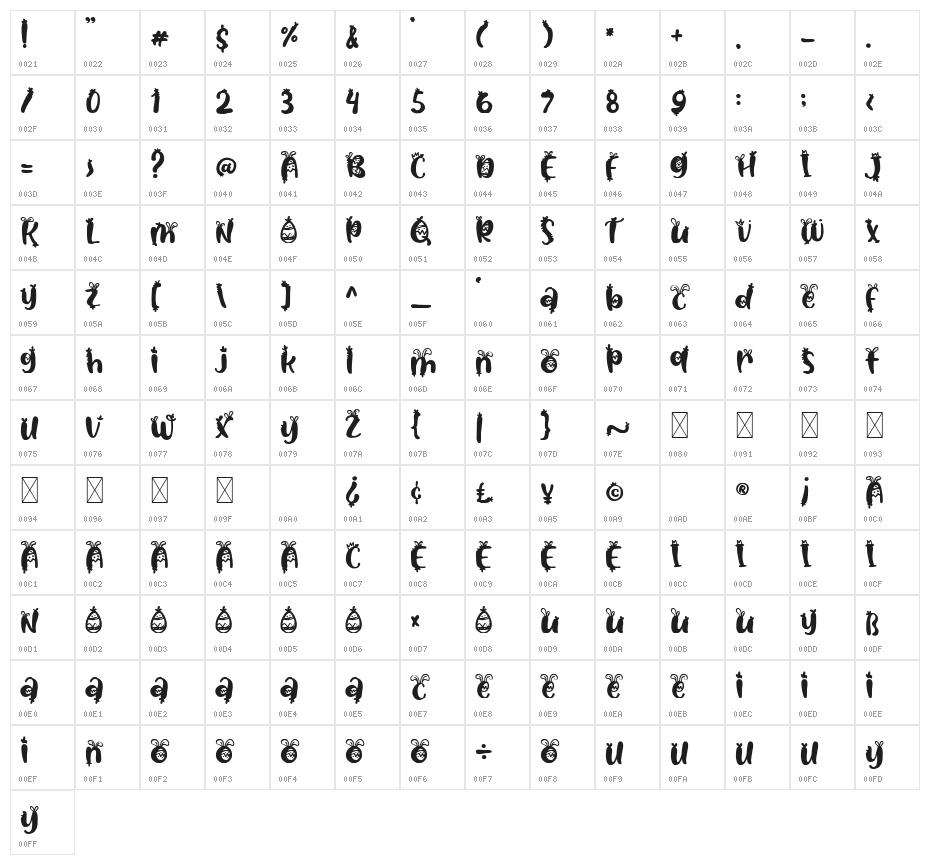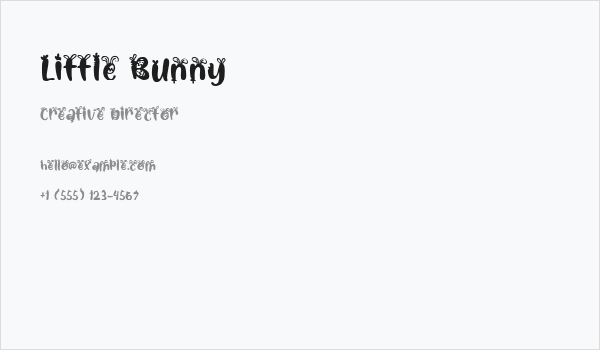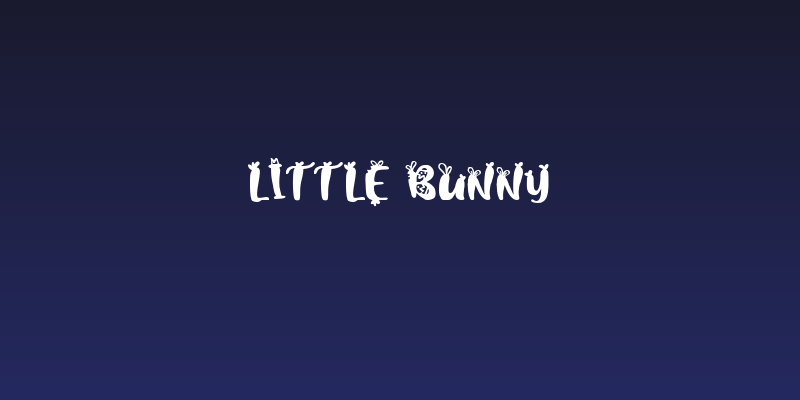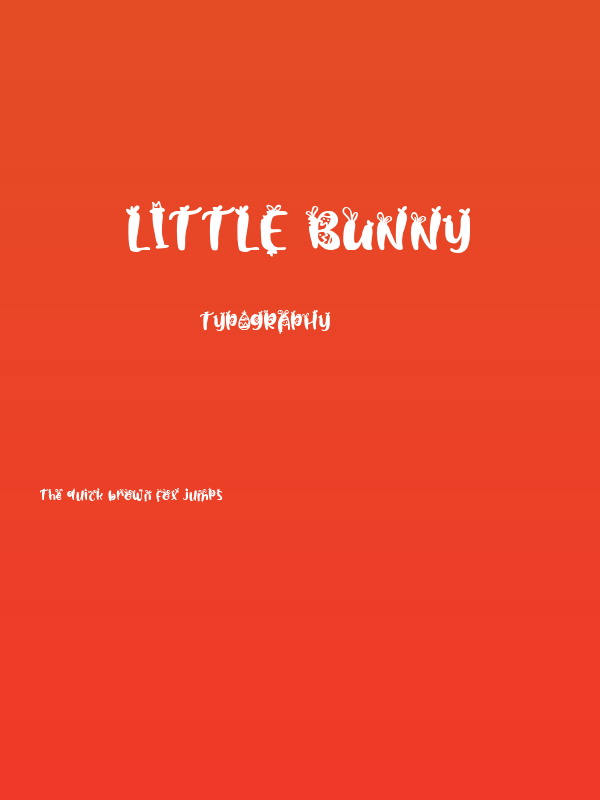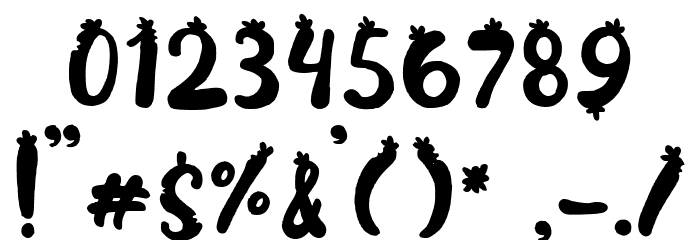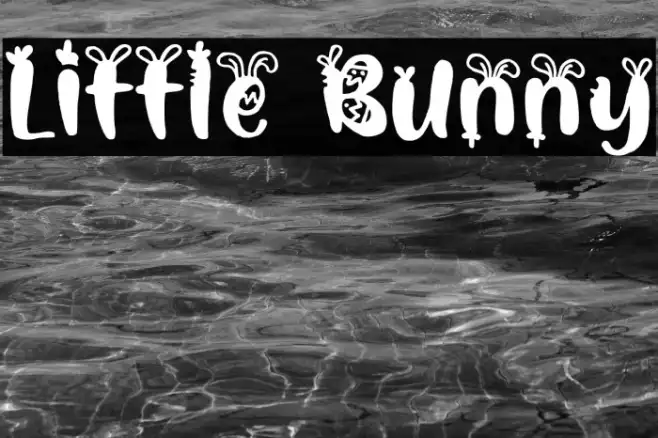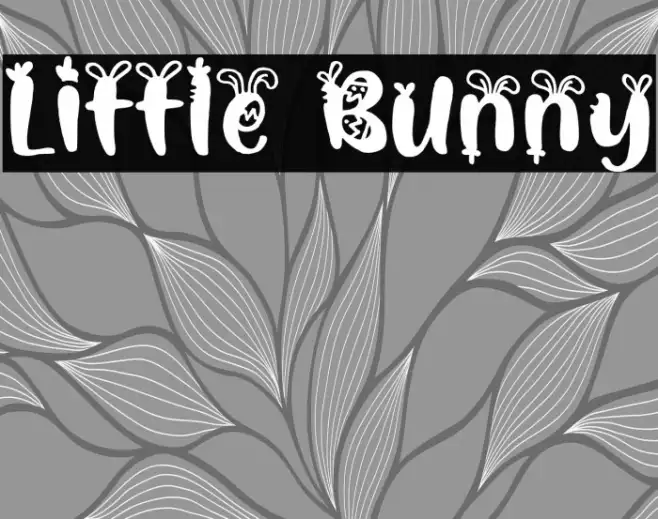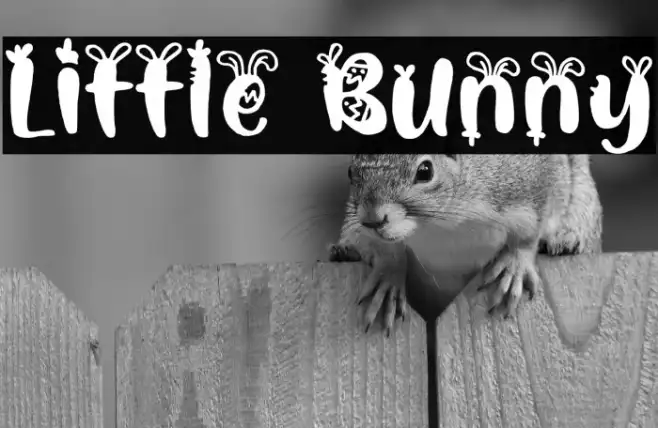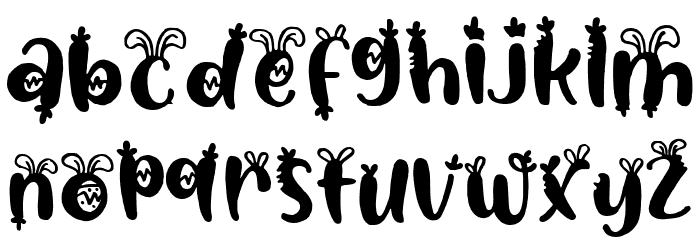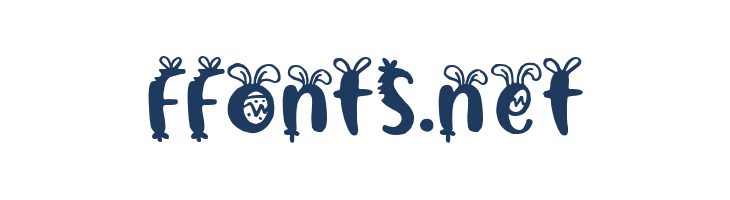
Little Bunny Font
Little Bunny Description
This playful and whimsical font features unique, decorative elements that resemble bunny ears and tails, adding a charming and festive touch to each character. The letters are bold and rounded, with a hand-drawn feel that enhances its playful nature. The uppercase and lowercase letters maintain a consistent style, with the uppercase being slightly larger and more pronounced. The numbers and special characters follow the same decorative theme, making the font cohesive and visually appealing. Its distinctive style makes it perfect for projects that require a fun and lively aesthetic.
| Proposed Projects | Ideal for children's books, Easter-themed designs, playful branding, and greeting cards. |